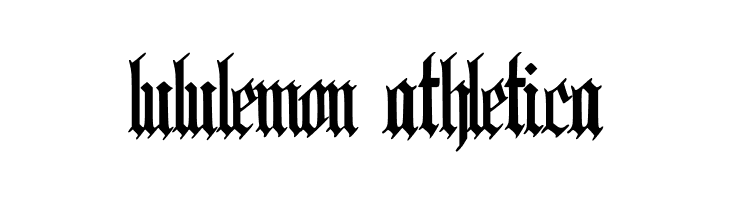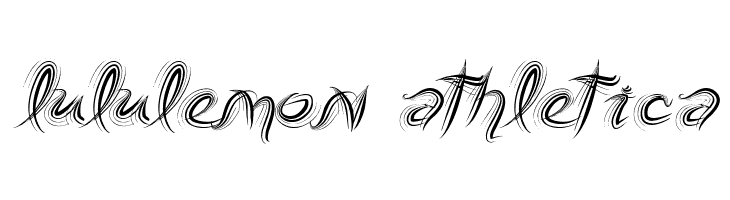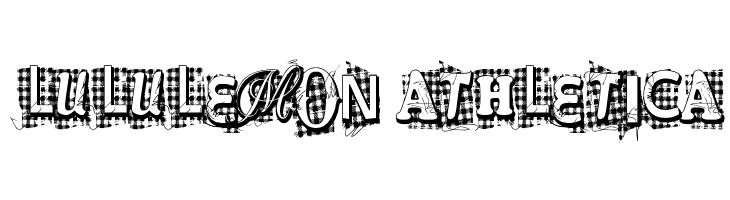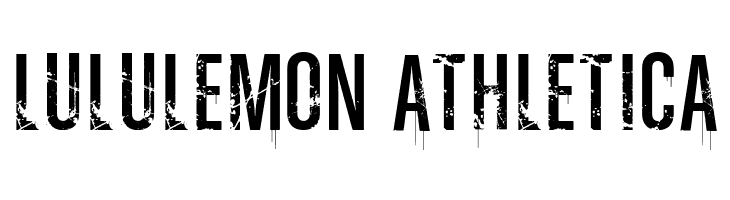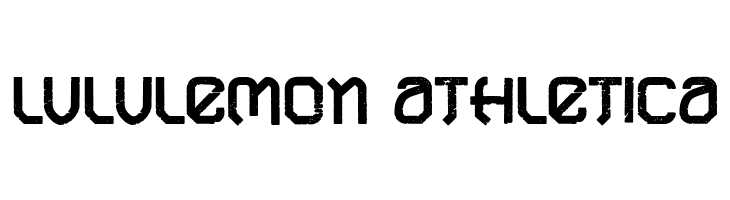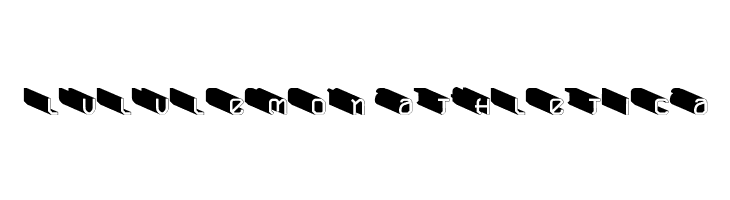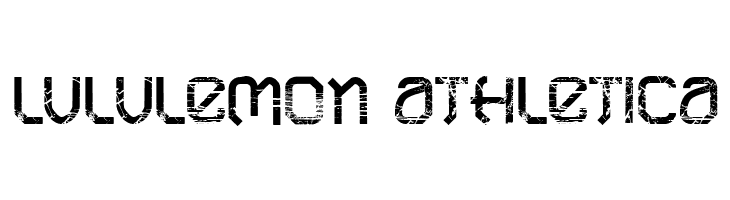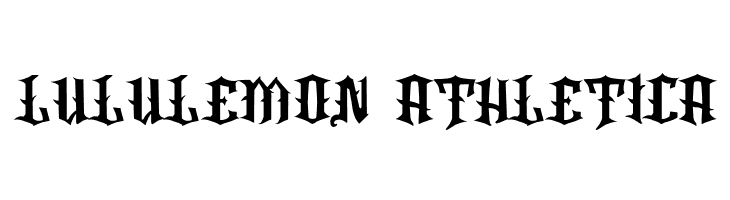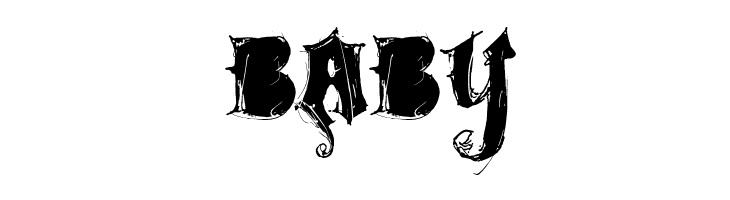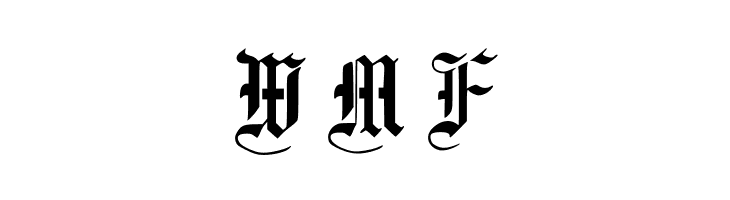
A dynamic and artistic font with swirling, fluid strokes and a calligraphic style.
A grungy, distressed font with a splattered ink effect and irregular strokes.
A bold, distressed font with a grunge texture, perfect for edgy designs.
A bold, dramatic Blackletter-style font with intricate detailing.
A bold, grunge-inspired decorative font with intricate details and a rock aesthetic.
A bold, distressed font with a modern, urban aesthetic.
A bold, 3D font with a modern urban style and shadow effect.
A bold, decorative font with intricate patterns and textures.
A traditional Blackletter font with ornate, gothic letterforms and high contrast.